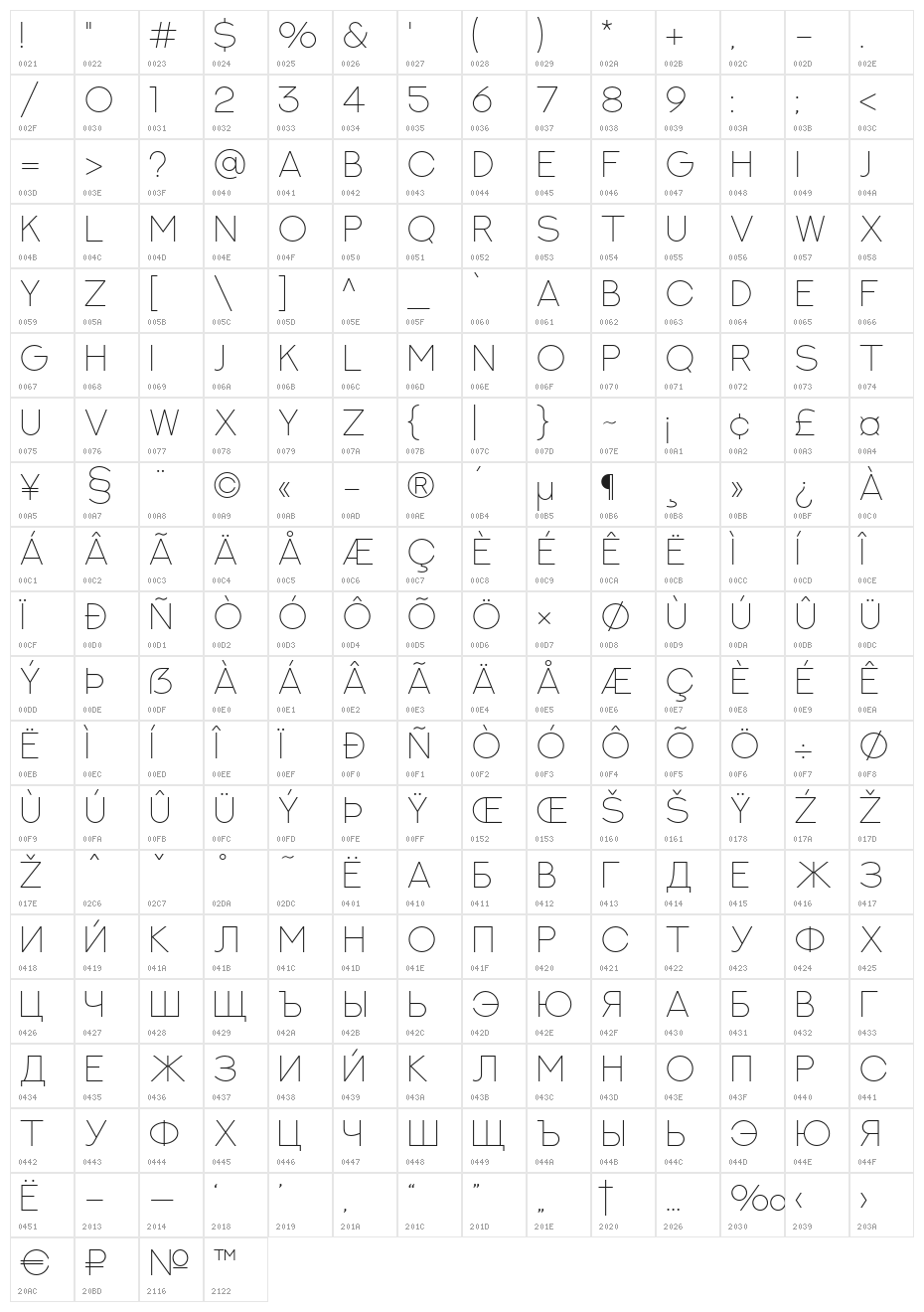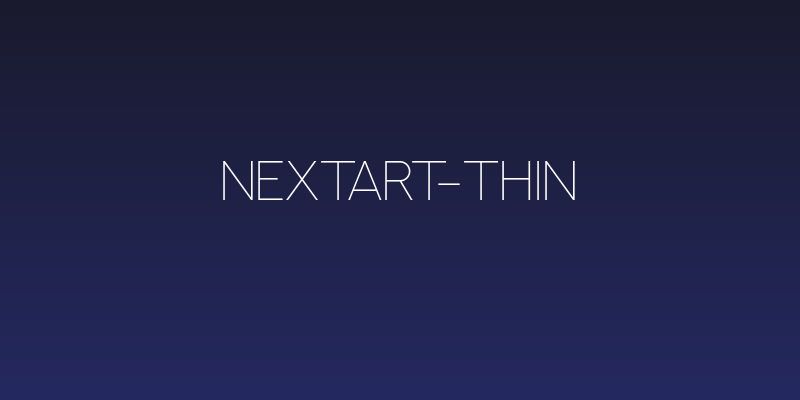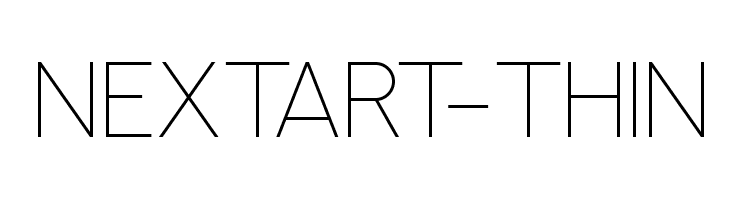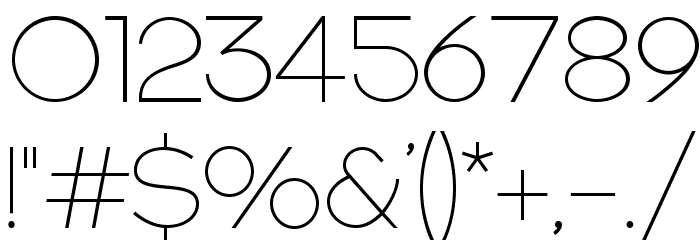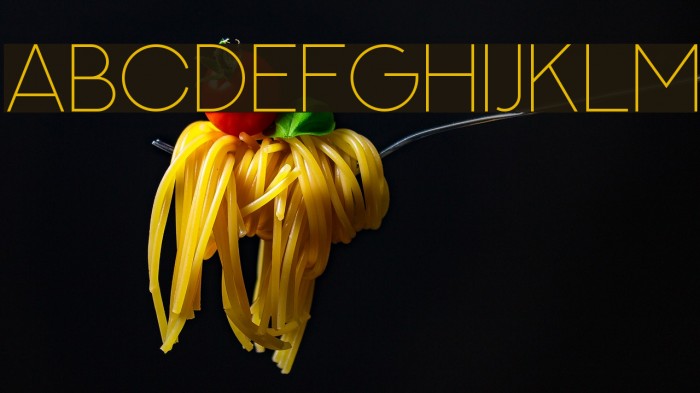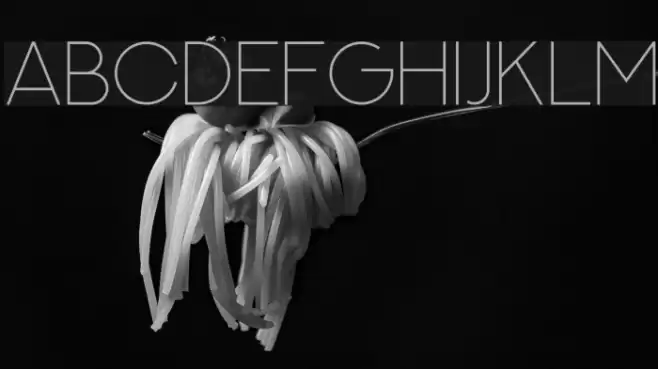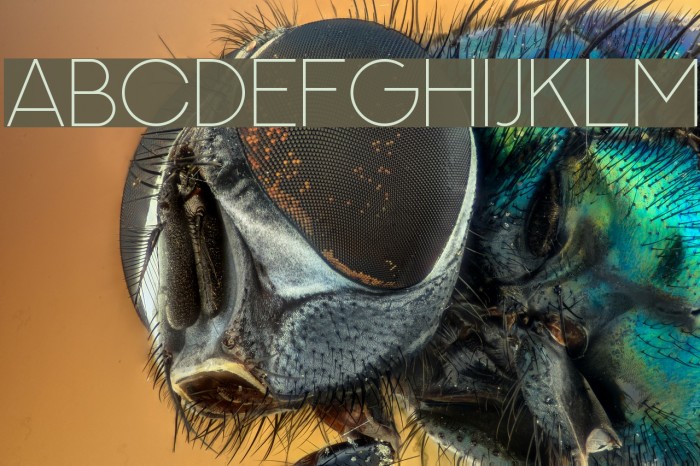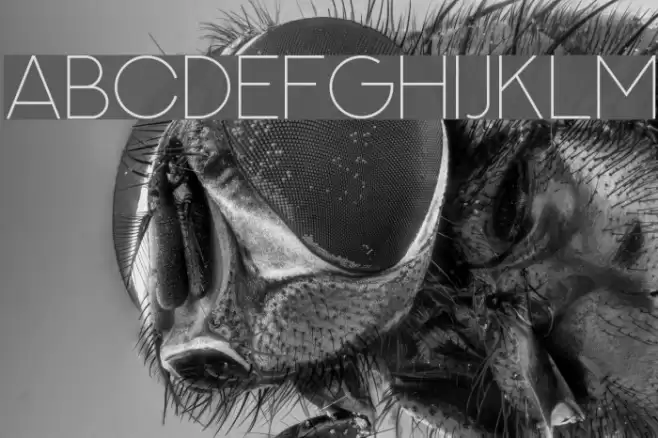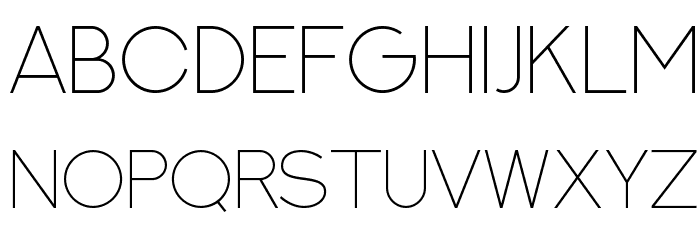
NEXTART-Thin Font
NEXTART-Thin Description
This font features a sleek, modern design with clean, straight lines and a minimalistic aesthetic. The characters are thin and elongated, giving a sense of elegance and sophistication. The uppercase and lowercase letters maintain a consistent height and width, ensuring uniformity across the typeface. The numerals are equally refined, with smooth curves and a balanced appearance. Special characters are designed with the same attention to detail, providing a cohesive look throughout. This font is ideal for projects that require a contemporary and stylish touch.
| Proposed Projects | Ideal for branding, editorial design, fashion magazines, and modern web design. |